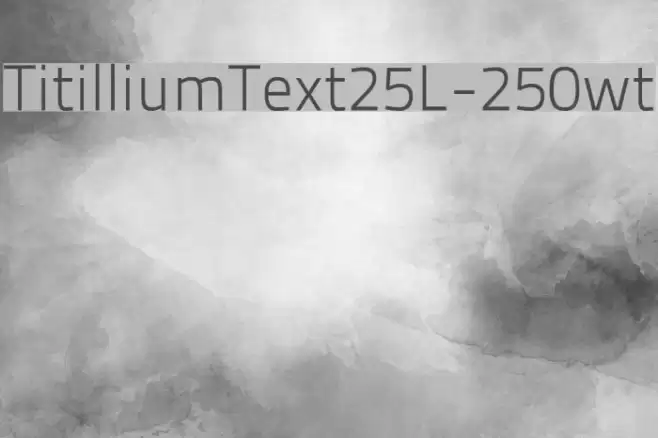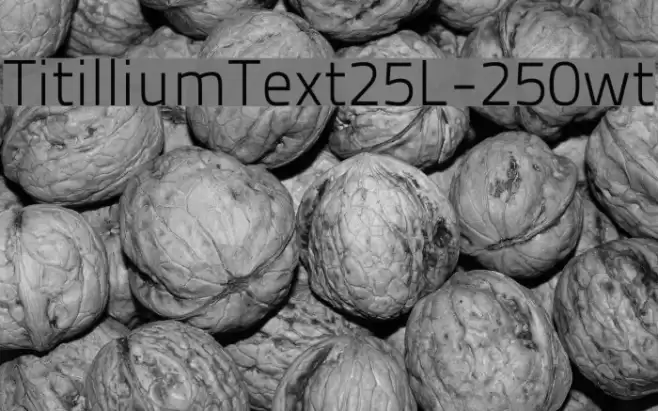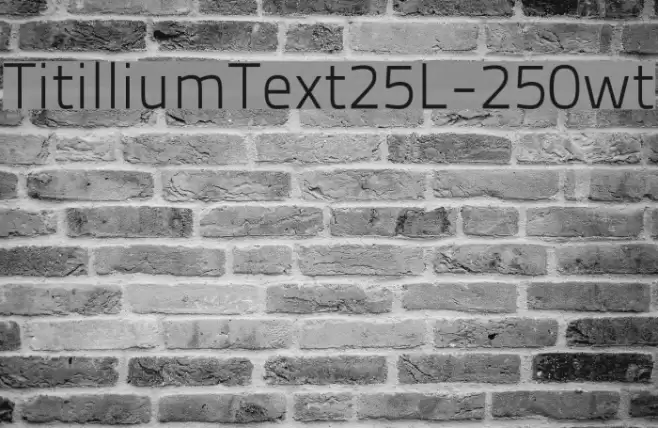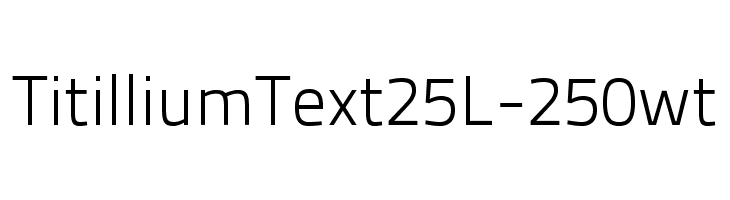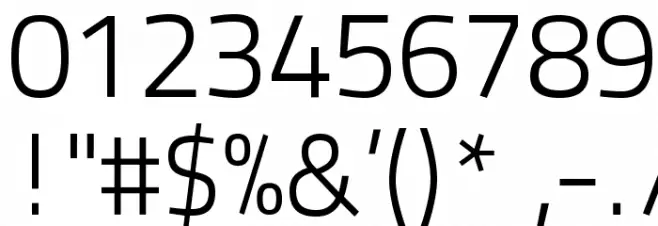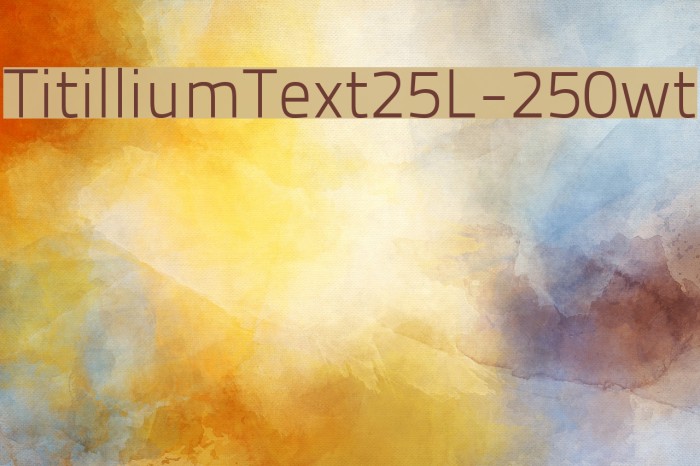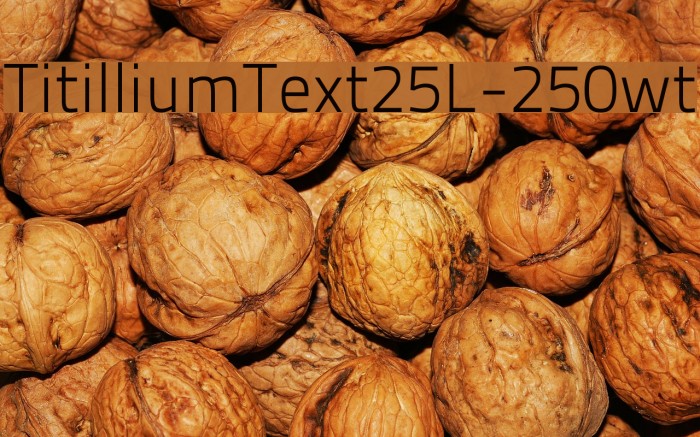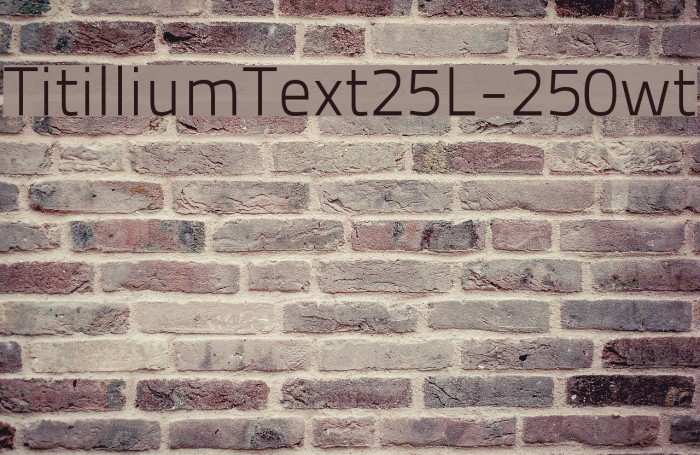
TitilliumText25L-250wt Font
TitilliumText25L-250wt Description
This font features a clean and modern sans-serif design, characterized by its geometric shapes and uniform stroke widths. The letters are well-proportioned, with a slightly condensed appearance that enhances readability while maintaining a sleek aesthetic. The uppercase letters are bold and assertive, while the lowercase letters offer a softer, more approachable look. The numerals are clear and distinct, making them ideal for both digital and print applications. Special characters are designed with the same attention to detail, ensuring consistency across all glyphs. This font is versatile, suitable for a wide range of design projects.
A modern, geometric sans-serif font with a clean and versatile design from Uncategorized fonts.